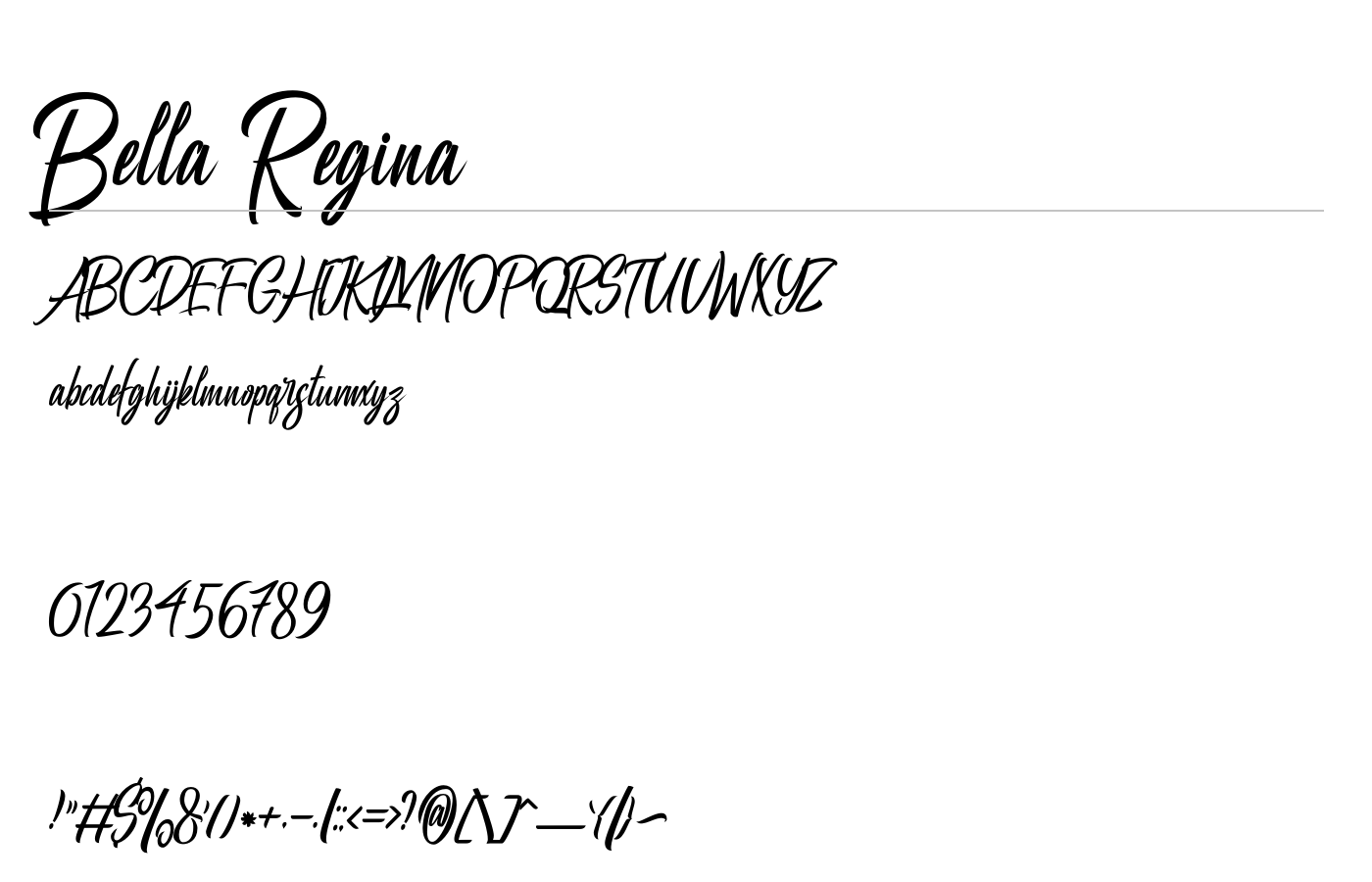
Bella Regina is an elegant script font with smooth, flowing strokes and a slender, slightly condensed design that gives it a graceful, handwritten feel. Its consistent weight and subtle calligraphic flair make it perfect for invitations, branding, and decorative headlines that seek a refined yet approachable personality. This font works beautifully for projects that want to convey sophistication and charm with a touch of modern style.
Bella Regina Font
About Bella Regina Font
| Font family | Bella Regina Font |